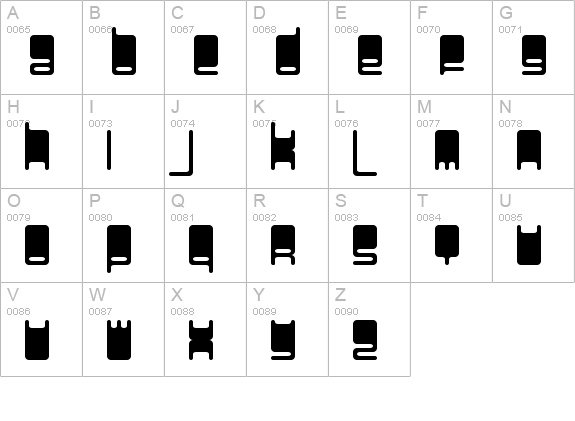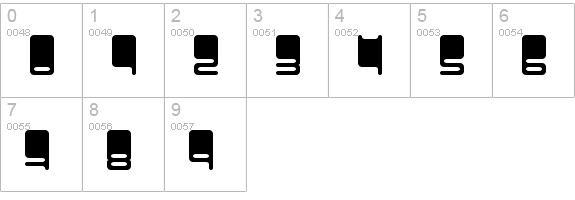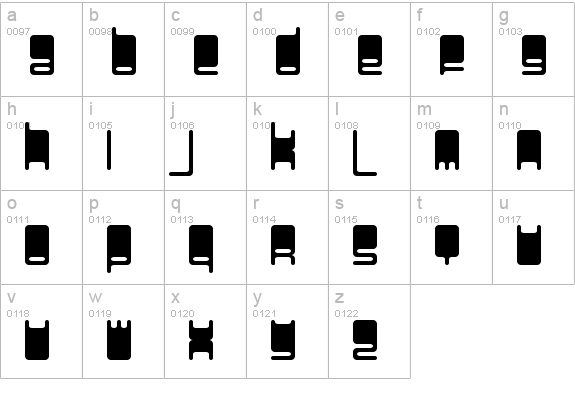
BigHeadMofo Font Details
Introducing BigHeadMofo font, a whimsical and playful typeface that is sure to make a bold statement in any design project. With its exaggerated and quirky letterforms, BigHeadMofo exudes personality and charm, making it perfect for adding a touch of fun to your creations. This unique font is free to download at FontsMarket.com, allowing you to unleash your creativity without any cost barriers. Whether you're designing a poster, logo, or social media graphic, BigHeadMofo will bring a touch of whimsy and originality to your work. Embrace the boldness of BigHeadMofo font and let your imagination run wild with this delightful typeface that is as free-spirited as you are. Download it today and add a playful touch to your designs!